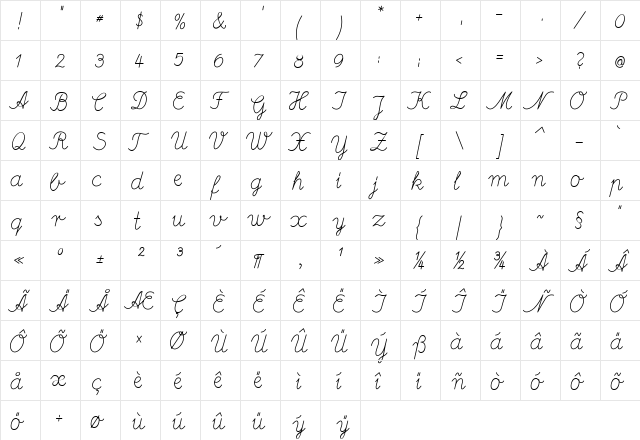
Deutsche Normalschrift Italic
| Foundry | Peter Wiegel |
| Designer | Peter Wiegel |
Design Context for Deutsche Normalschrift Typeface
Deutsche Normalschrift takes a measured approach to typography — its balanced proportions and neutral character make it a reliable workhorse for both digital and print work. Its italic angle brings a sense of urgency and motion to the letterforms.